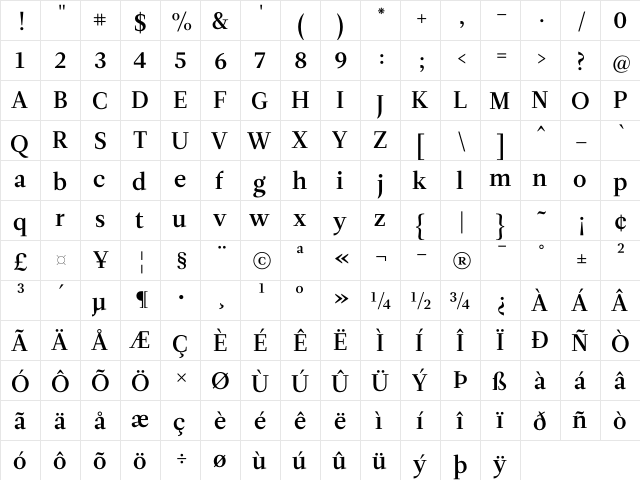
Leitura Roman 3
Roman 3 · Dino dos Santos _DSType Dino dos Santos ·
DesignerDino dos Santos
Design Context for Leitura Typeface
Leitura takes a measured approach to typography — its balanced proportions and neutral character make it a reliable workhorse for both digital and print work.